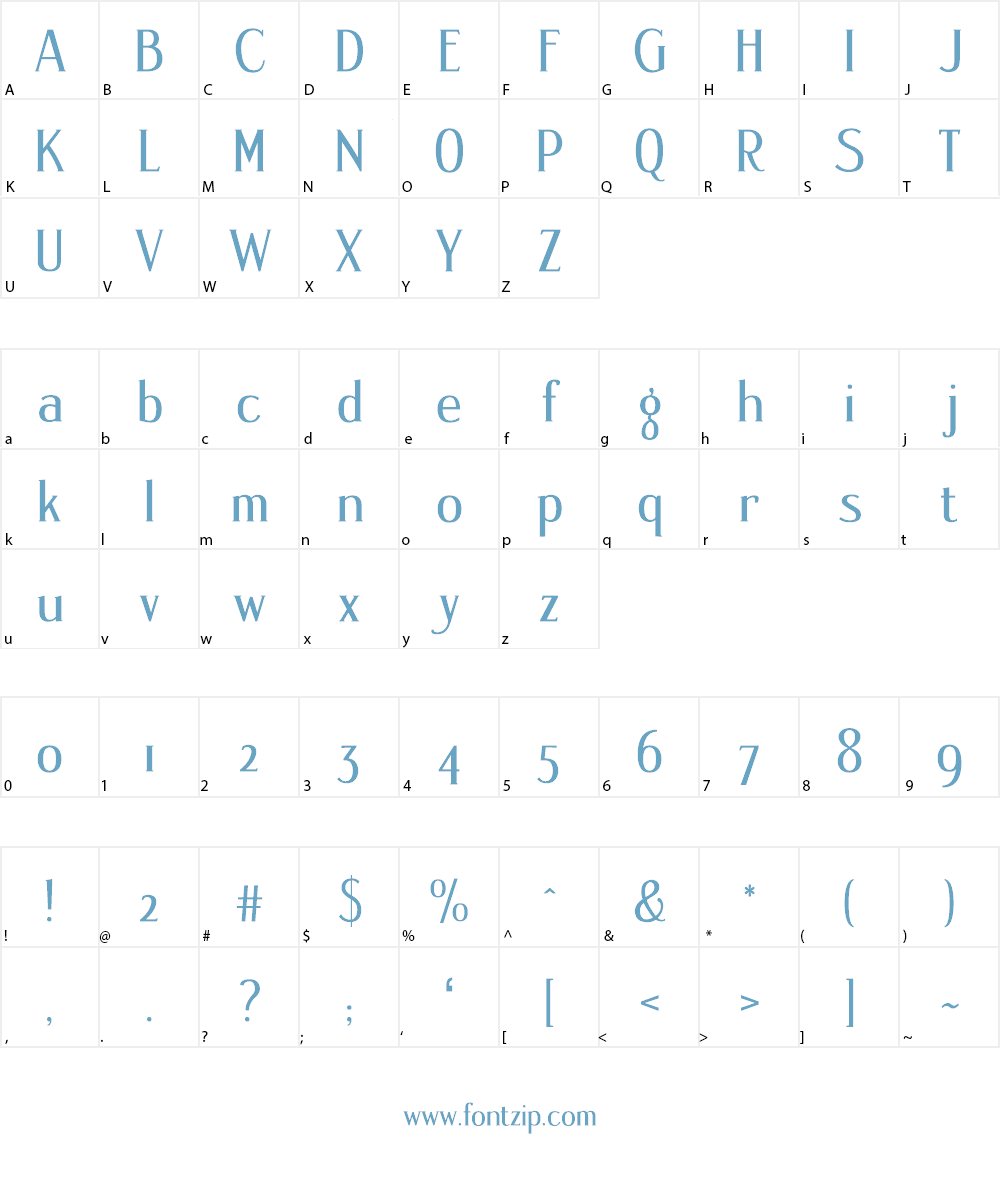
I have decided to make the 1900-1950's font as Kade Klodt asked me to. This is "Poor Little Peppina" the font based from the 1916 film Poor Little Peppa by Kate Jordan at Famous-Players-Lasky Corporation.